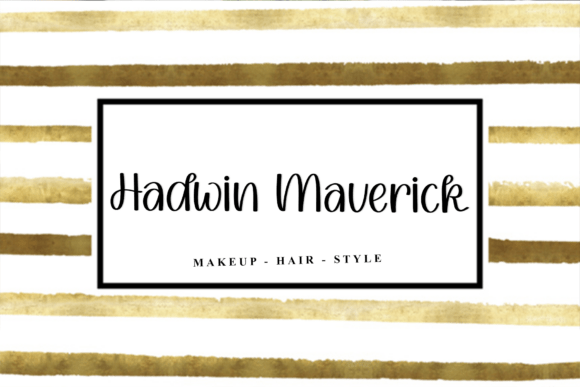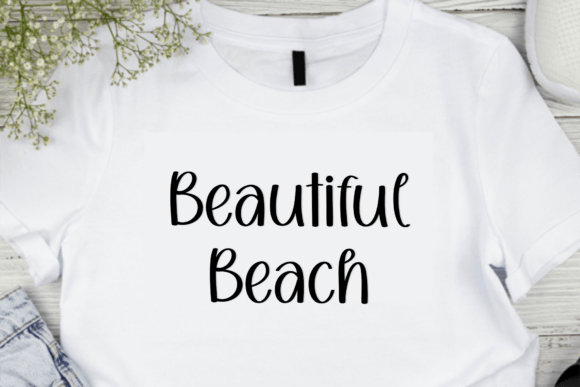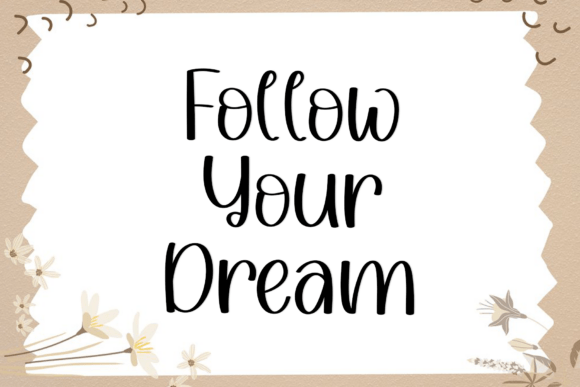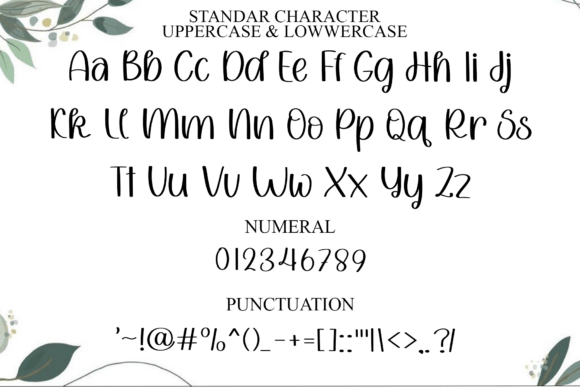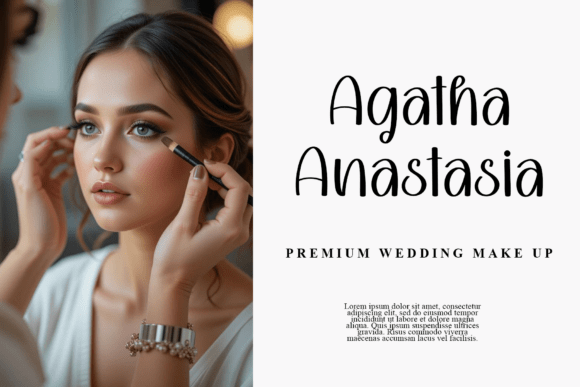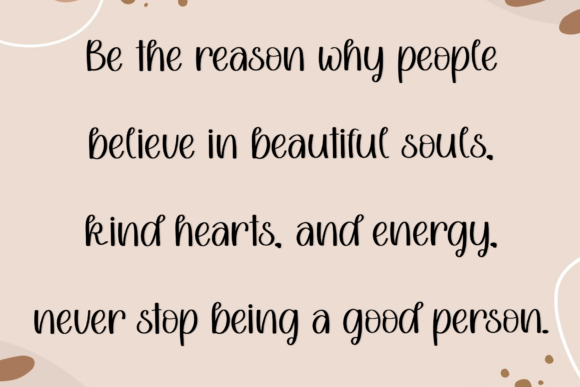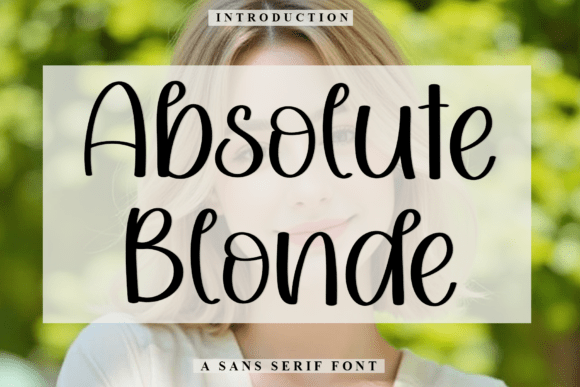
The Perfect Touch of Whimsy: Unlocking the Power of Absolute Blonde Font
Have you ever found yourself browsing through a vintage bookstore, stumbling upon an old design magazine that sparks your creativity? The intricate typography, the playful illustrations, and the overall aesthetic transport you to a world of endless possibilities. That’s exactly the kind of inspiration you can tap into with the Absolute Blonde Font, a beautiful and eye-catching typeface designed to add a soft, unique touch to your designs.
As a designer, you know the importance of choosing the right font to convey your message and connect with your audience. That’s where the Absolute Blonde Font comes in – with its distinctive strokes and versatile nature, it’s perfect for a wide range of design projects, crafts, and creative works. Whether you’re working on a branding project, a graphic novel, or a DIY craft, this natural font style is sure to elevate your designs and make them appealing to many audiences.
Key Features of Absolute Blonde Font
- Unique Characteristics: The Absolute Blonde Font features a unique, hand-drawn design with a mix of bold and delicate strokes, giving it a distinctive and eye-catching appearance.
- Character Set: The font includes a comprehensive character set, including uppercase and lowercase letters, numerals, punctuation marks, and special characters, making it suitable for a wide range of applications.
Designer Review: Absolute Blonde Font
Overall, I think the Absolute Blonde Font has a lot going for it. ✨ One of its strongest features is its high level of customizability. The font family includes a wide range of weights, from super light to extra bold, which makes it easy to find the perfect fit for any design project.
Another aspect that works well is the font’s friendly, approachable feel. The letterforms are rounded and smooth, making it a great choice for any design that requires a touch of warmth and personality. ✨ The font also includes a range of ligatures and contextual alternates, which can add an extra layer of sophistication to your designs.
- ⚠️ The font may not be suitable for use in formal or traditional settings, as its friendly feel may come across as too casual.
- ⚠️ The font’s rounded letterforms can sometimes make it difficult to read at very small sizes.
- ⚠️ The font family is quite large, which can make it overwhelming to navigate and find the perfect weight or style.
Overall, I think the Absolute Blonde Font is a solid choice for designers looking for a friendly, approachable font. While it may have some limitations, its high level of customizability and friendly feel make it a great addition to any design arsenal.
Use the Absolute Blonde Font to add a touch of elegance and sophistication to your designs.
Pair it with bold colors and geometric shapes for a modern look.
Use it for headings and titles to make them stand out.
Use the Absolute Blonde Font for:
Business cards and marketing materials.
Photography and art projects.
What is the character set of the Absolute Blonde font?
The Absolute Blonde font includes a comprehensive character set, including Latin, Cyrillic, and Greek alphabets, as well as punctuation and special characters. The font also includes support for OpenType features, such as ligatures and swashes, which can add a touch of elegance to your designs.